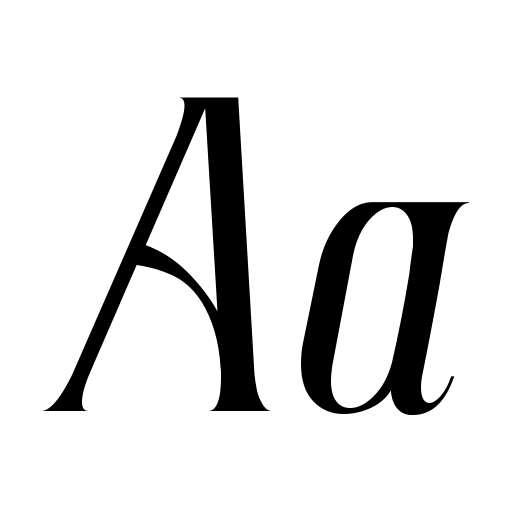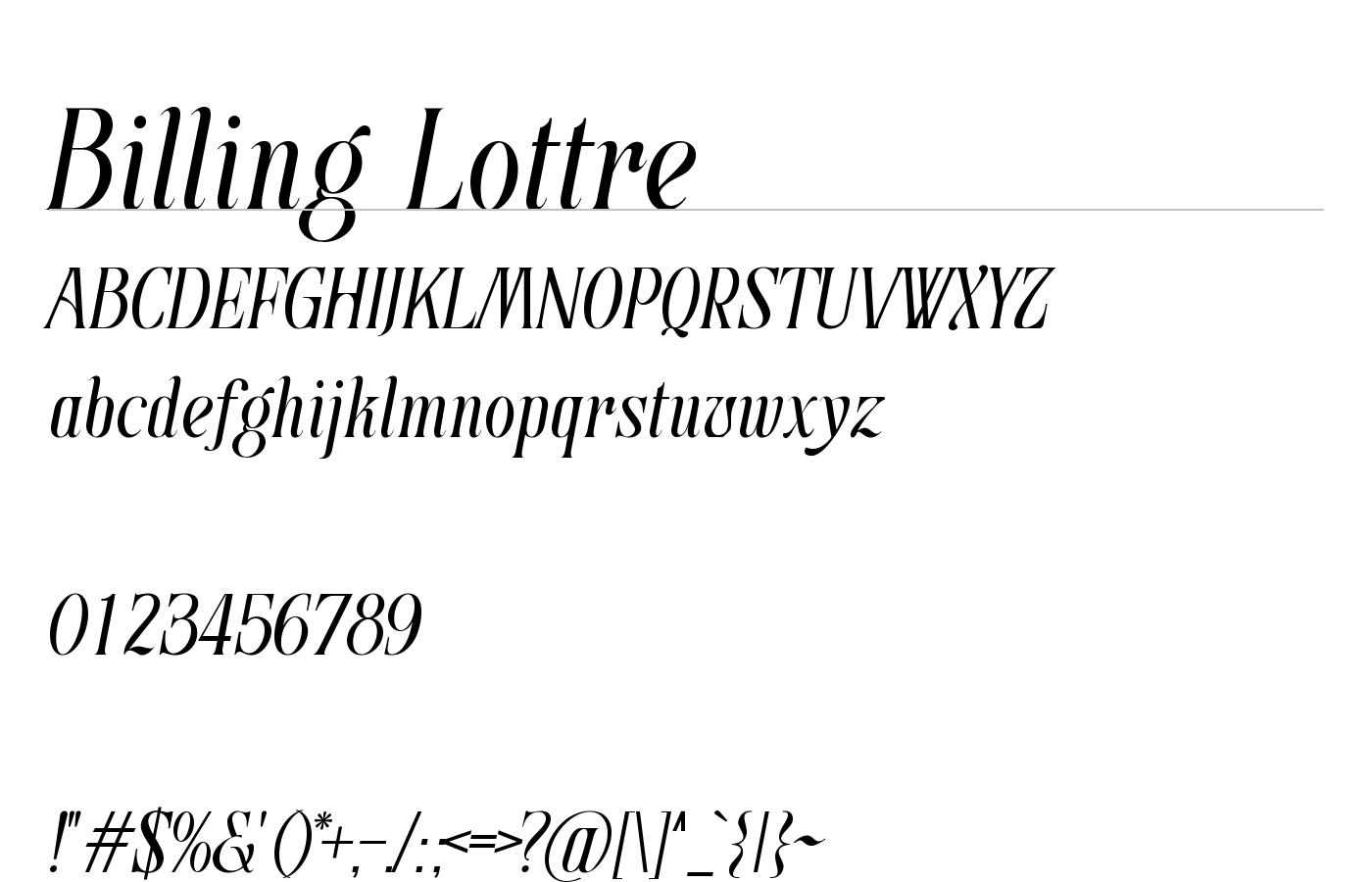
Billing Lottre is an elegant serif font with a distinctively high contrast between its thin and thick strokes, featuring graceful, flowing italic letterforms that evoke sophistication and refinement. Its tall, slightly condensed proportions and delicate serifs make it perfect for luxury branding, editorial headlines, and stylish packaging where a sense of timeless class and modern flair is desired. This font’s refined details and slender forms lend a polished, upscale feel that works beautifully in designs aiming for elegance and exclusivity.